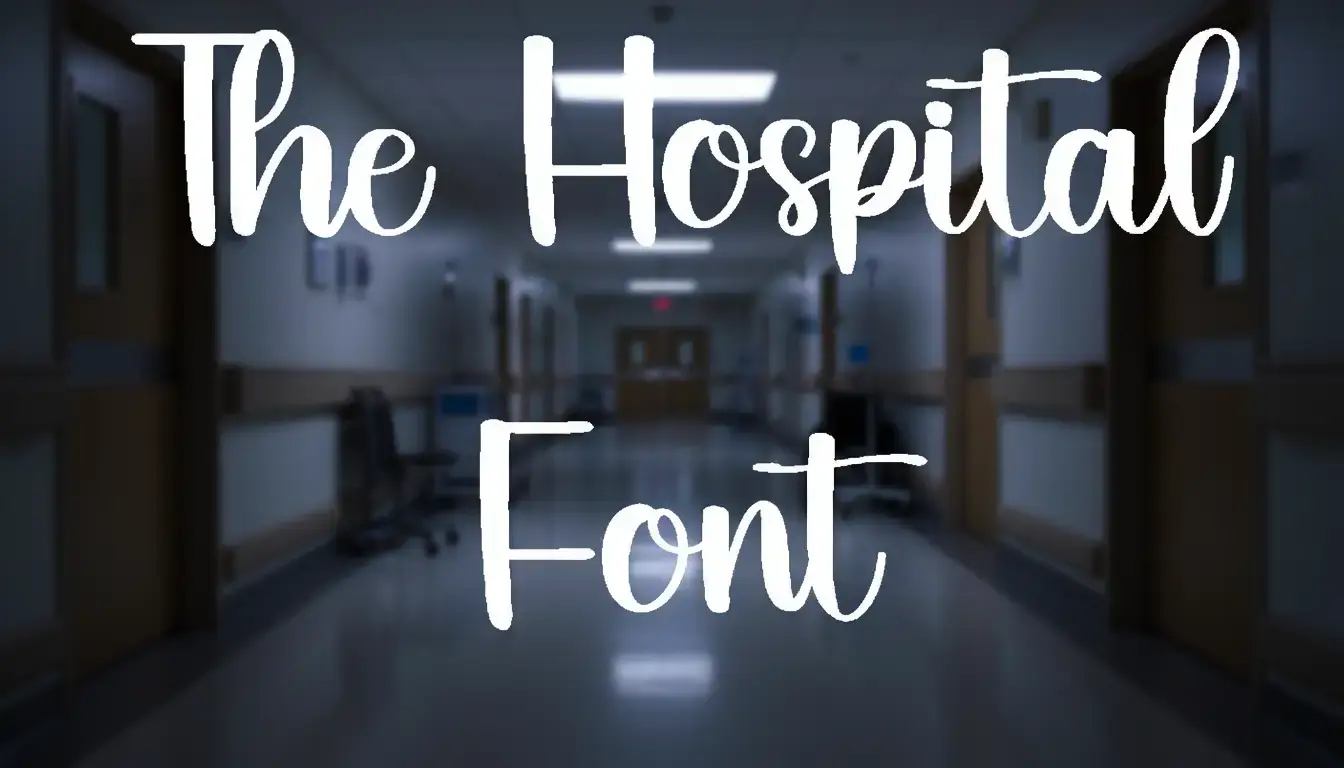
The Hospital Font
The Hospital is a script font. Its flowing, pen-made letters give names and short phrases a personal, polished look. You can download it for free and test it with your own words in the preview above.
The Hospital covers the full alphabet in upper and lowercase, plus all ten numbers, so you can set names, dates and prices without switching fonts. Everyday marks like &, !, ? and @ are there too. Thanks to its accented letters, it also works for Spanish, French, Portuguese and Italian, not just English.
The Hospital is a natural fit for wedding invitations, logos and signature-style headings. Script fonts read best in short bursts, so keep it to names, titles and one-line quotes. Skip all caps: script capitals are drawn to start a word, not to fill one.
Yes. The Hospital includes the accented letters needed for Spanish, French, Portuguese and Italian, so it works for more than just English.